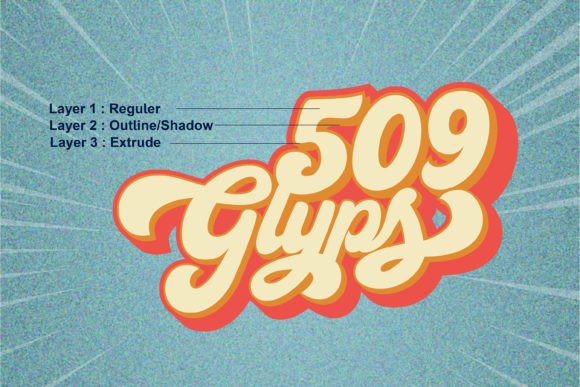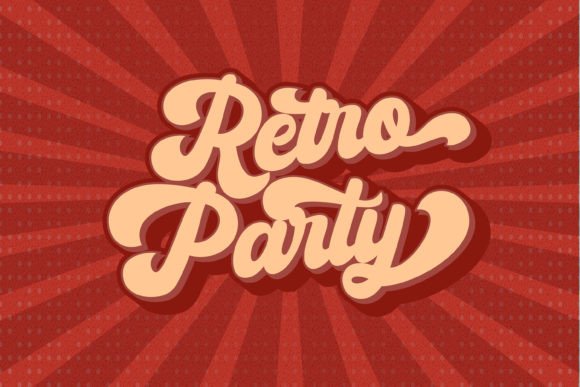
Cheers Font
Cheers is a cool, retro bold script font with a funky vibe. Get inspired by its vintage charm and use it to create unique designs. This font is PUA encoded which means you can access all the glyphs and ligatures with ease!